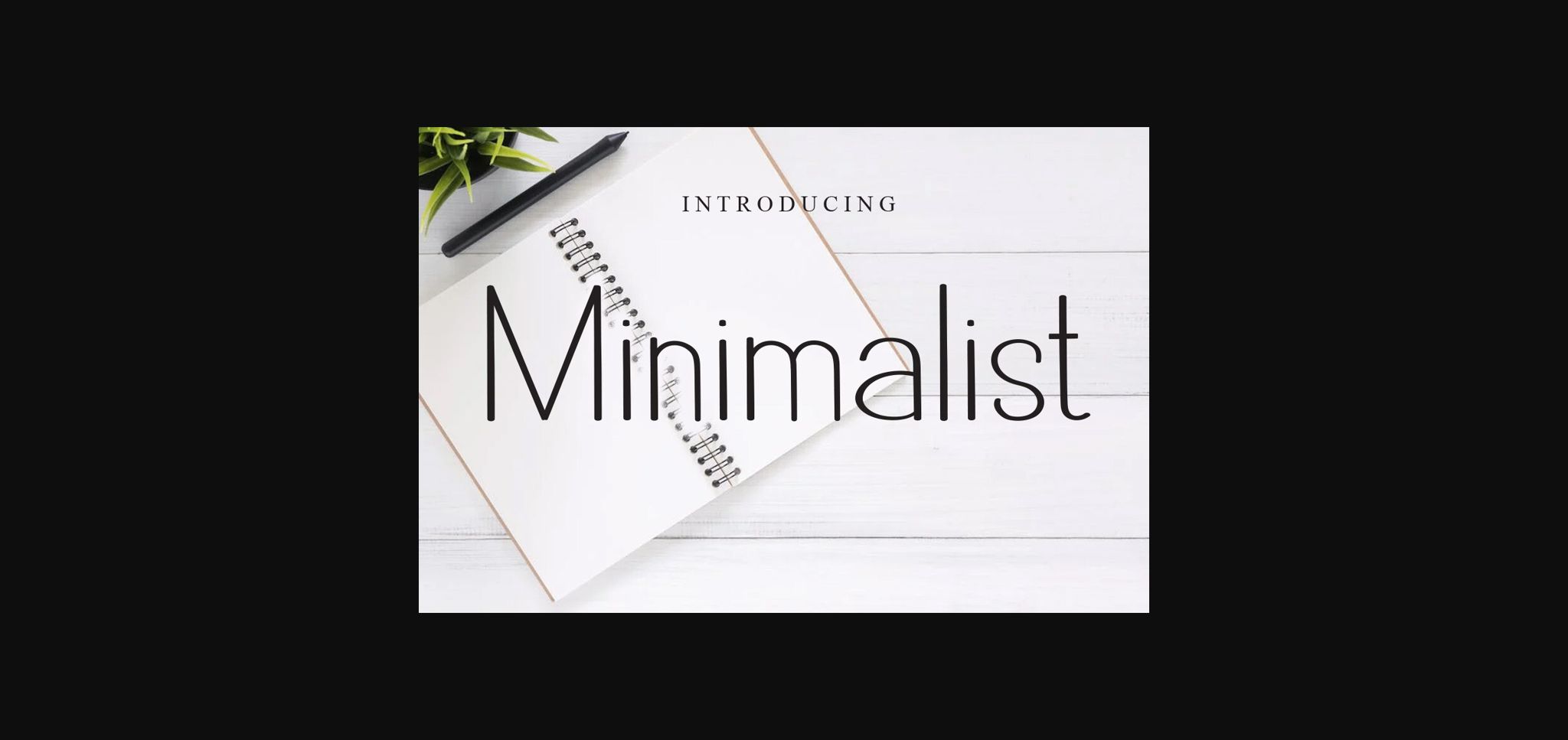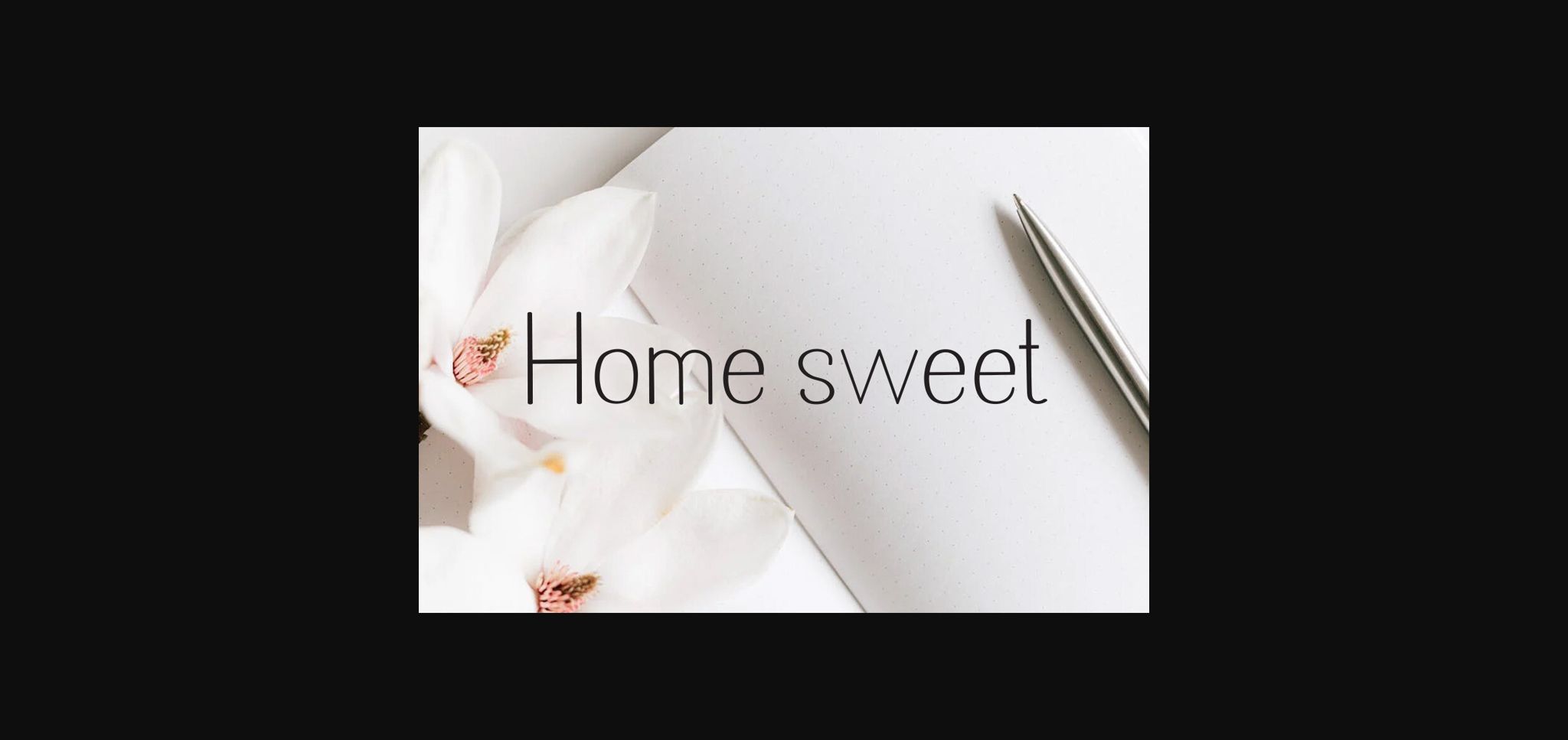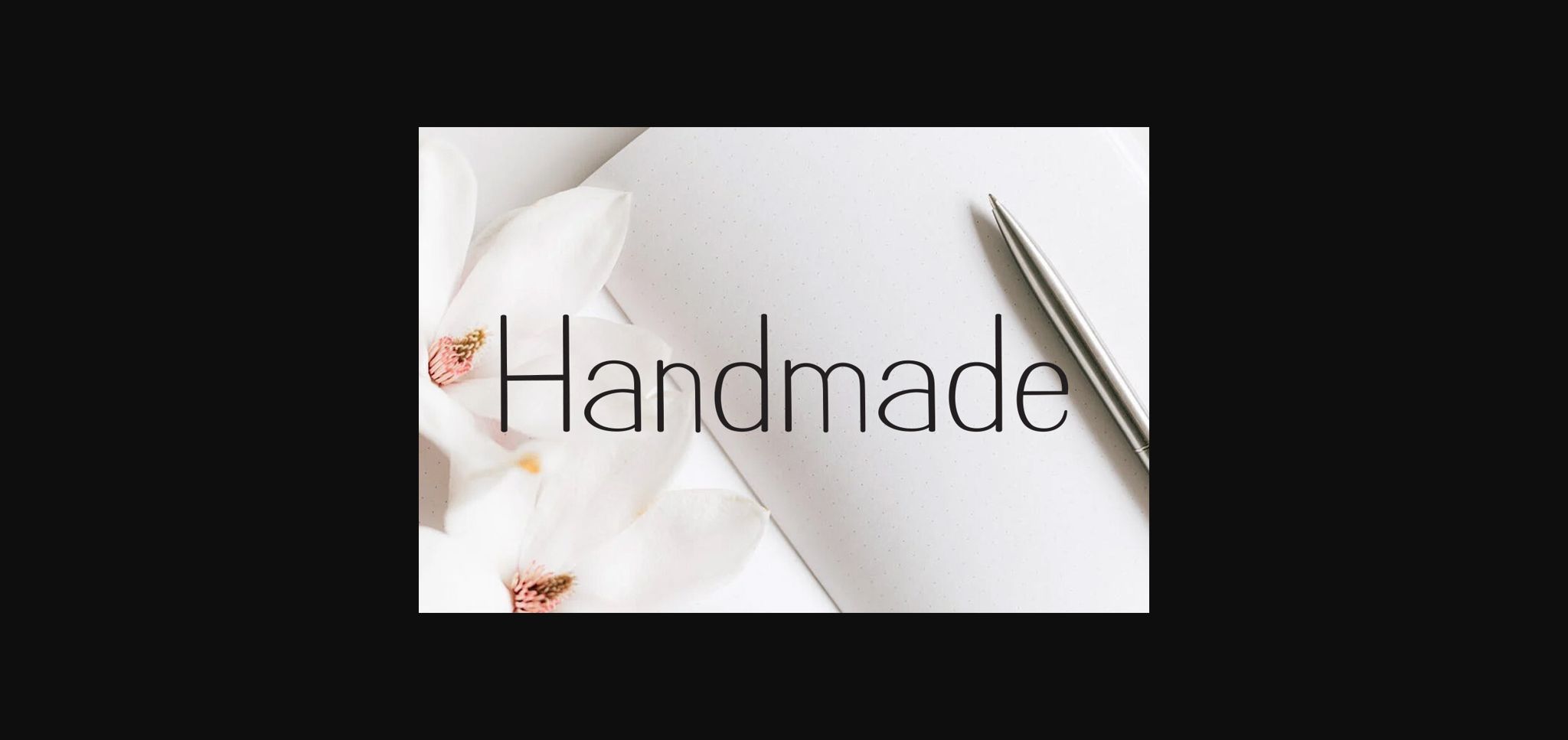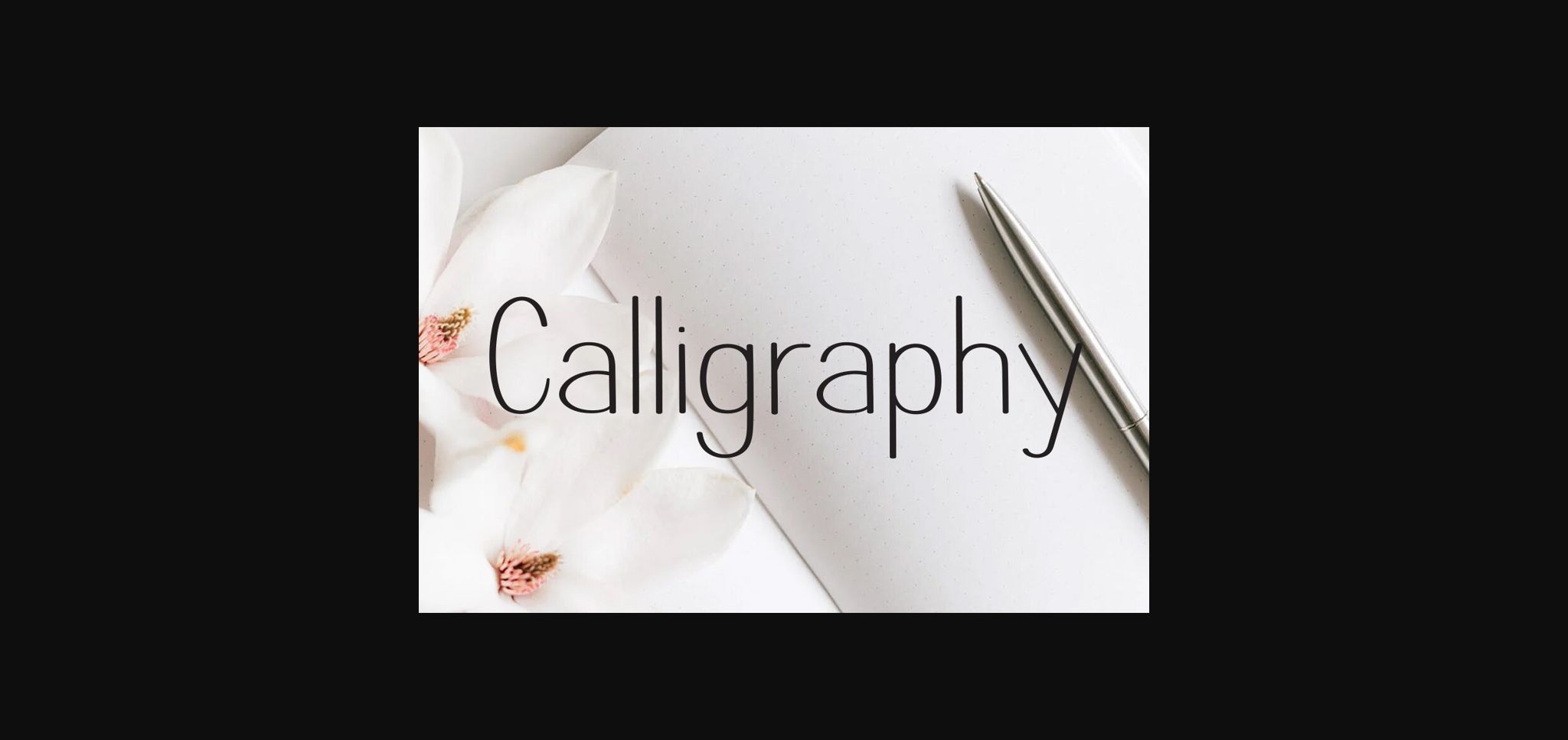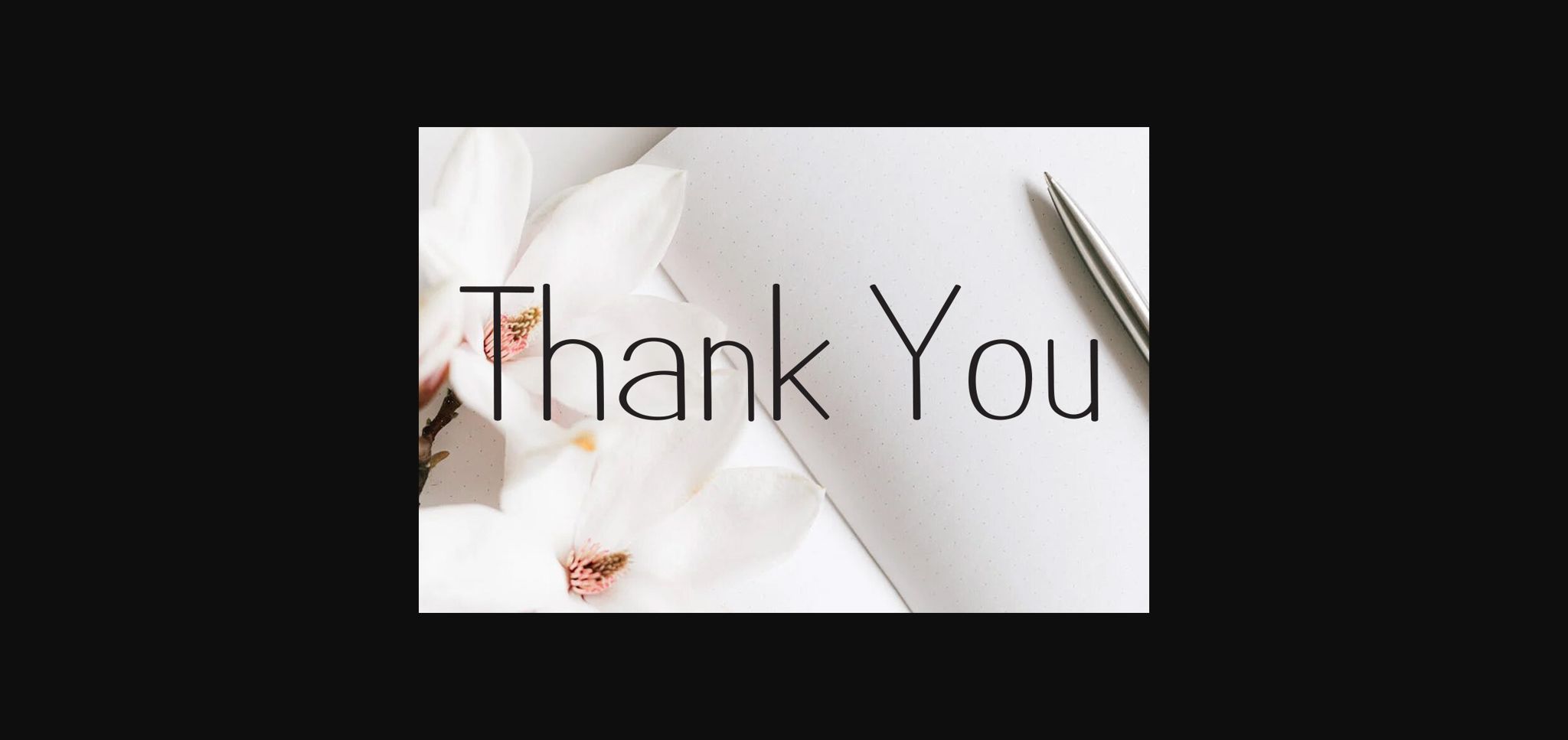
About Minimalist Font
Minimalist is a fun and casual sans-serif font. This gentle font will look gorgeous on a variety of design ideas. It will add a joyful and romantic touch to each of your projects!